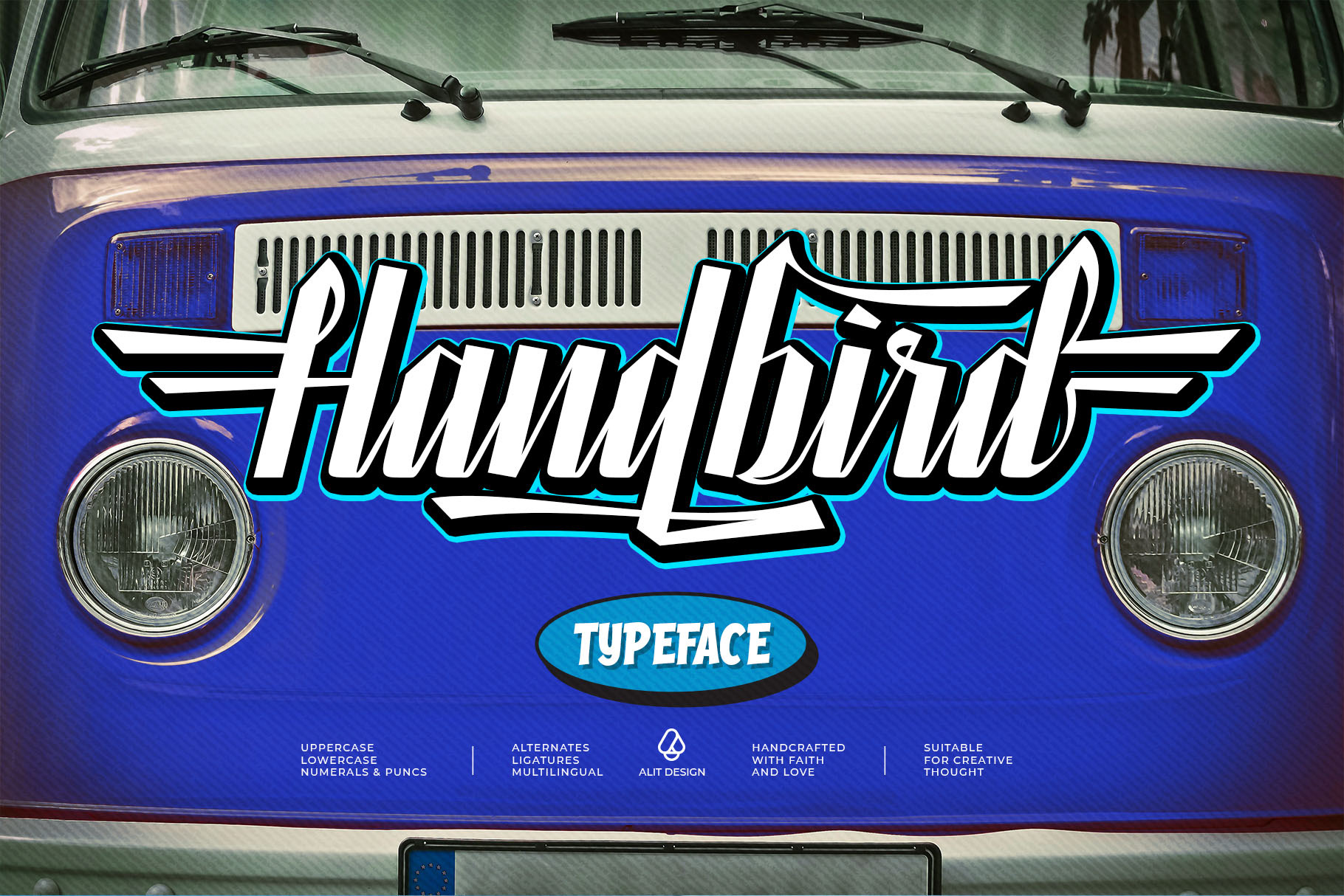
Handbird Script Font
Introducing the Handbird Script Font – where elegance meets intensity. Designed for those who dare to be bold, this font is perfect for adding a touch of fierce sophistication to your projects. With a total of 785 characters, Handbird Script Font offers versatility and dynamism that truly set your designs apart.
Themes & Features
Fierce Script: Handbird Script Font embodies the spirit of fierce elegance. Its sharp edges and bold strokes give your text a commanding presence, making it ideal for headlines, logos, and branding materials that need to stand out.
Speedy: Capture the essence of movement with Handbird’s speedy design. The fluidity and swift strokes of this script font convey a sense of urgency and dynamism, perfect for sports brands, automotive designs, and any project that requires a fast-paced look.
Dynamic: Versatility is at the heart of Handbird Script Font. Its dynamic nature allows it to adapt to various design needs, whether you’re creating eye-catching posters, social media graphics, or stylish apparel. The font’s energetic flow brings a lively and engaging feel to your text.
Ligatures: Handbird Script Font includes an extensive set of ligatures, ensuring smooth and natural connections between letters. These ligatures enhance the overall aesthetic of your text, providing a seamless and professional appearance.
Swash: Add a touch of flair with Handbird’s swash characters. These decorative elements offer extra embellishment, perfect for adding a luxurious touch to wedding invitations, greeting cards, and other special projects.
785 Characters: With an impressive 785 characters, Handbird Script Font provides a comprehensive set of glyphs to cover all your design needs. This extensive character set includes uppercase and lowercase letters, numbers, punctuation, multilingual support, and a variety of stylistic alternates.
Applications
Handbird Script Font is ideal for a wide range of applications including:
- Branding and logo design
- Packaging
- Apparel design
- Advertising
- Social media graphics
- Headlines and editorial design
Conclusion
Elevate your designs with the Handbird Script Font. Its fierce, speedy, and dynamic character themes combined with the elegance of ligatures and swashes make it a must-have in any designer’s toolkit. With 785 characters at your disposal, the creative possibilities are endless. Transform your projects with Handbird Script Font and leave a lasting impression.